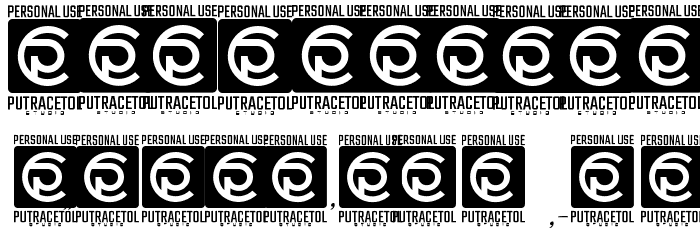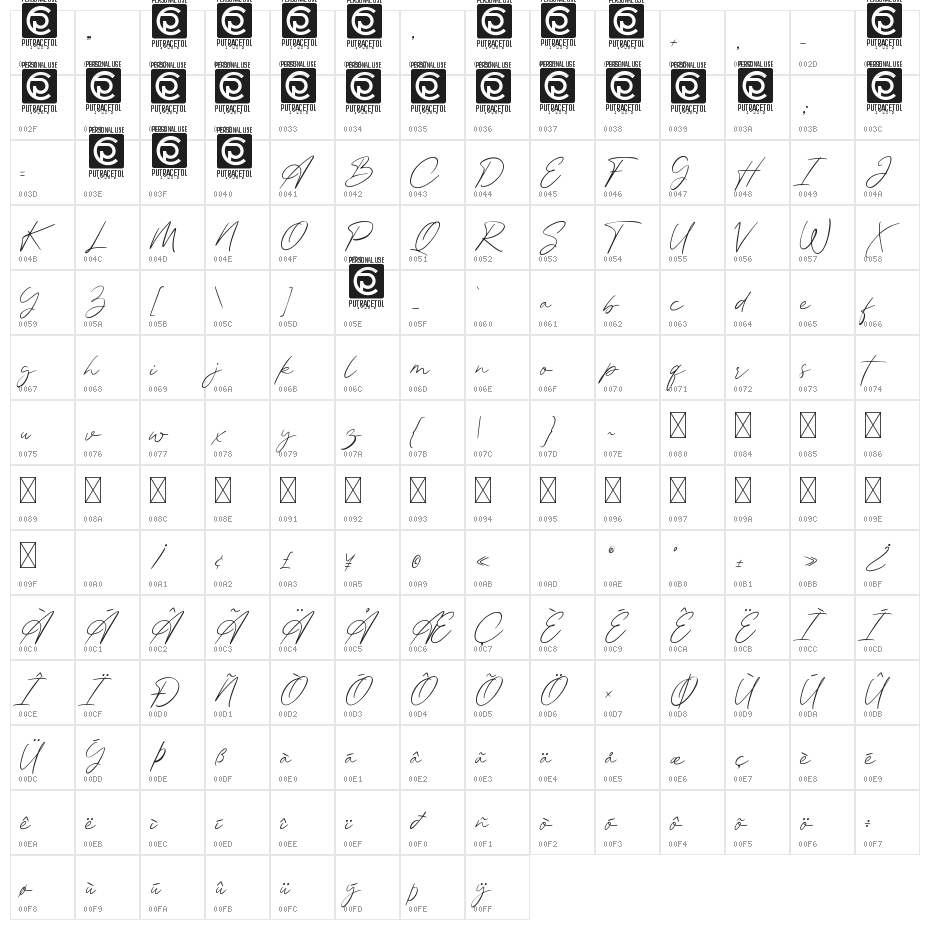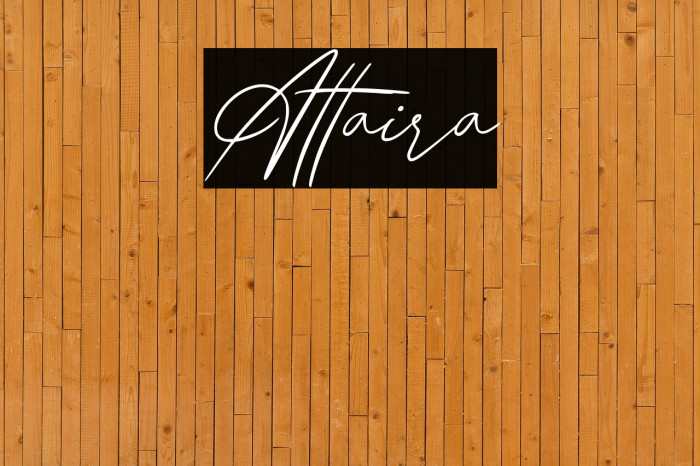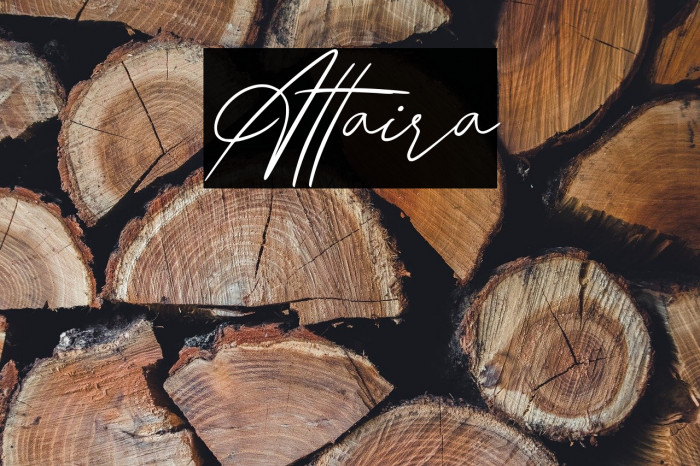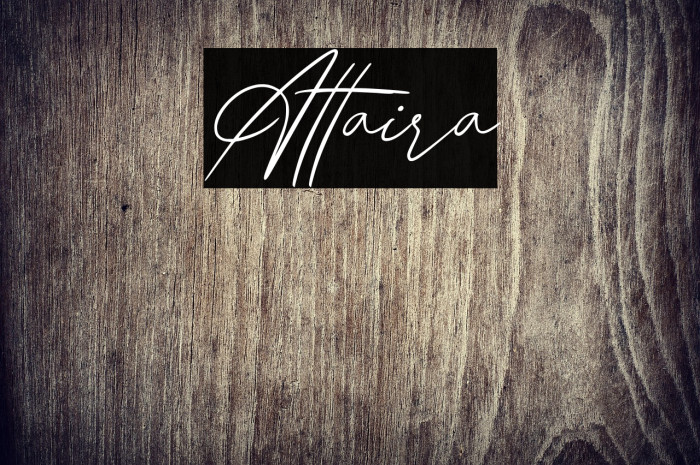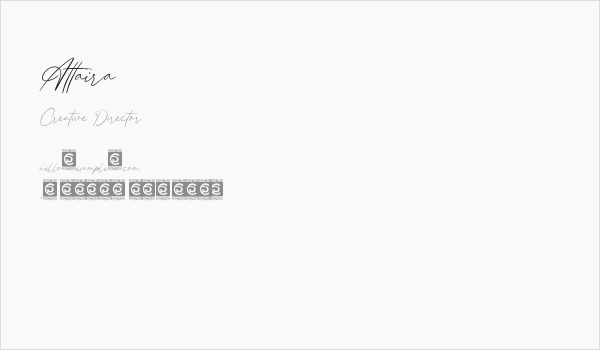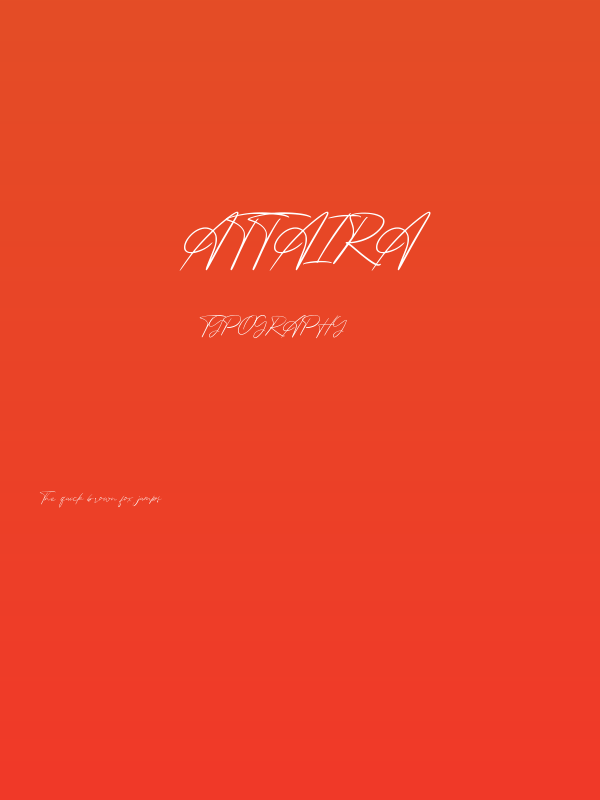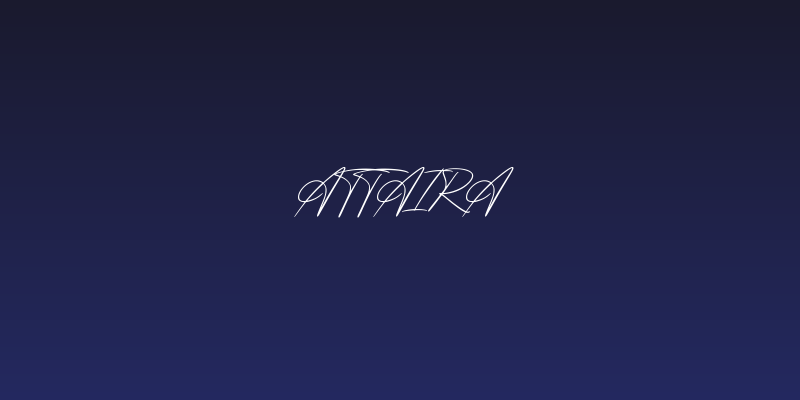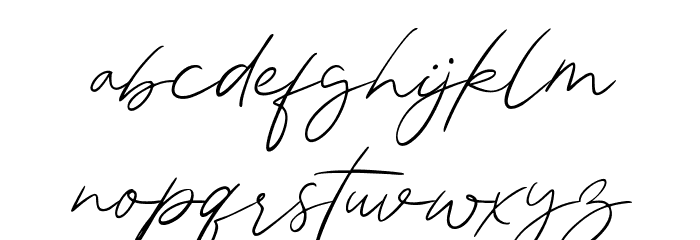
Attaira Font
Attaira Description
This font features an elegant and flowing script style, characterized by its smooth, cursive letterforms that mimic natural handwriting. The uppercase letters are tall and slightly slanted, while the lowercase letters maintain a consistent flow with gentle curves and loops. The overall appearance is sophisticated and artistic, making it ideal for projects that require a personal touch. The font maintains a consistent stroke width, providing a balanced and harmonious look. It is suitable for both formal and informal applications, adding a touch of elegance to any design.
| Overall Style | Elegant, Artistic |
| Proposed Projects | Ideal for wedding invitations, greeting cards, personal branding, and elegant logos. |